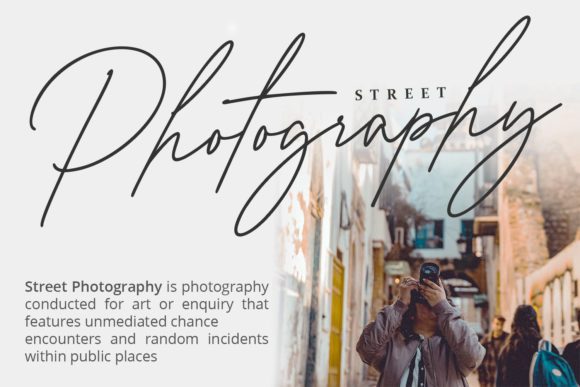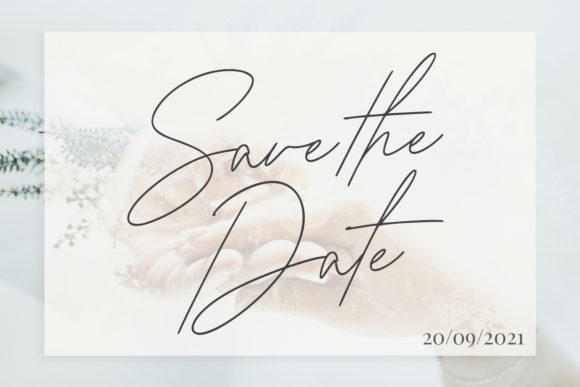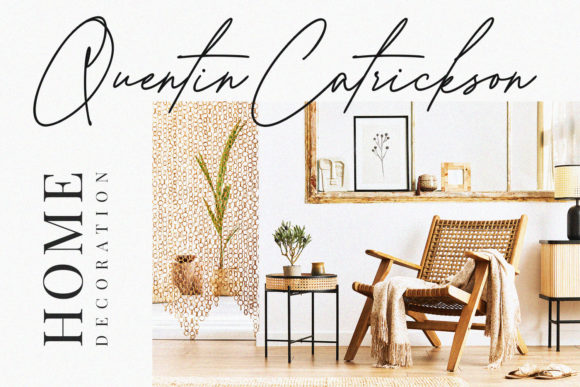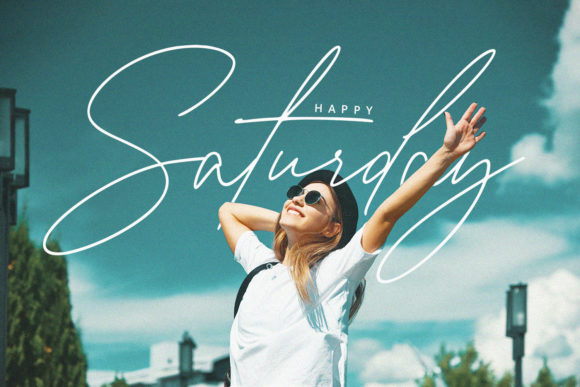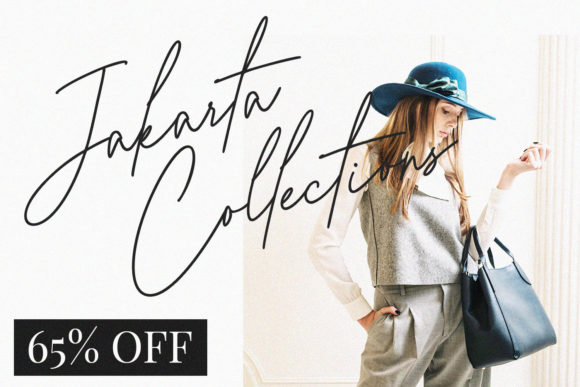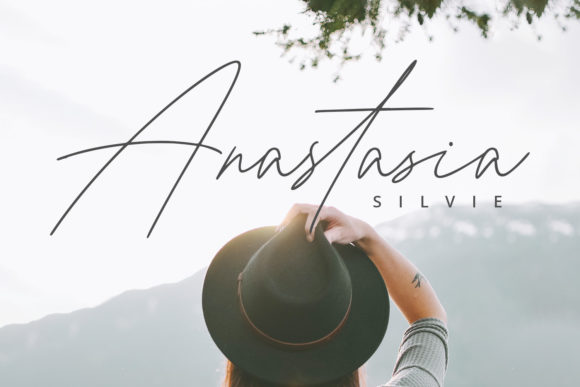
Discover the Elegance of Gia Cristine Font: Your New Go-To Script Font
Are you on the hunt for a font that exudes elegance, sophistication, and a touch of modern flair? Look no further than the Gia Cristine Font, a stylish and slender lettered script font that is making waves in the design world. With its clean and simple style, Gia Cristine is an incredibly versatile font that can elevate a wide range of designs, from wedding invitations and branding materials to digital content and craft projects.
The Characteristics of Gia Cristine Font
Gia Cristine Font is characterized by its fashionable and thin lettered script style, which lends an air of refinement and poise to any design it is used in. The font’s neat and simple style ensures that it remains highly legible, even at smaller sizes, making it perfect for use in a variety of applications, from body text to headings and titles.
Why Gia Cristine Font Stands Out
So, what sets Gia Cristine Font apart from other script fonts on the market? Here are just a few reasons why Gia Cristine is fast becoming a favorite among designers and crafters:
- Versatility: Gia Cristine’s clean and simple style makes it suitable for use in a wide range of designs, from formal and traditional to modern and trendy.
- Elegance: The font’s slender lettering and refined style give it an undeniable air of sophistication and elegance, making it perfect for designs that require a touch of luxury.
- Legibility: Despite its delicate style, Gia Cristine remains highly legible, even at smaller sizes, making it perfect for use in body text as well as headings and titles.
Uses for Gia Cristine Font
The versatility of Gia Cristine Font means that it can be used in a wide range of applications, including:
- Wedding Invitations: Add a touch of elegance and sophistication to your wedding invitations with Gia Cristine Font.
- Branding: Use Gia Cristine to create a refined and luxurious brand identity for your business.
- Digital Content: Elevate your blog posts, social media graphics, and other digital content with the stylish and modern look of Gia Cristine Font.
- Craft Projects: Whether you’re creating handmade cards, scrapbooking pages, or other craft projects, Gia Cristine Font is the perfect choice.
Tips for Using Gia Cristine Font
To get the most out of Gia Cristine Font, here are a few tips to keep in mind:
- Pair with Bold Fonts: Pair Gia Cristine with bold, sans-serif fonts for a striking contrast that adds visual interest to your design.
- Use for Headings: Gia Cristine Font is perfect for use in headings and titles, where its elegant style can really shine.
In conclusion, Gia Cristine Font is a stylish and versatile script font that is sure to become your new go-to font for a wide range of design projects. With its elegant and refined style, Gia Cristine is perfect for designers and crafters who want to add a touch of sophistication and luxury to their work. So why wait? Discover the elegance of Gia Cristine Font for yourself today!